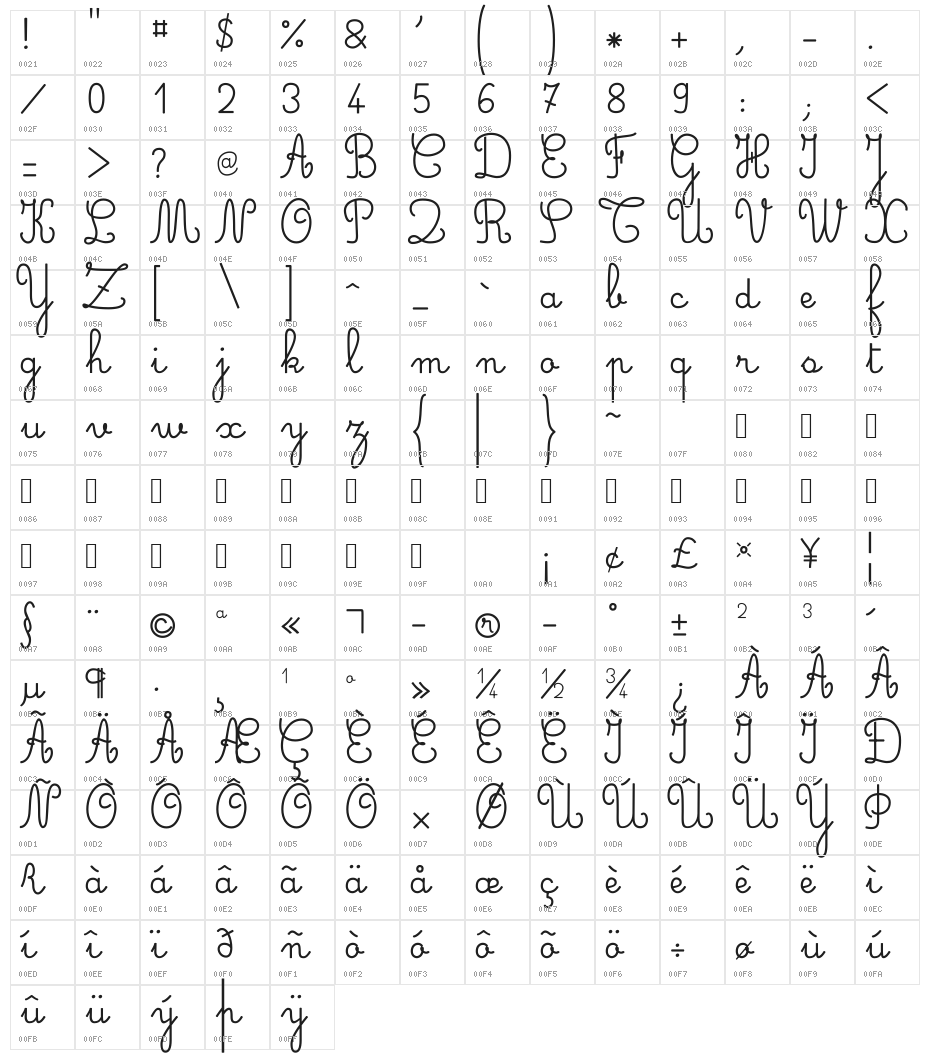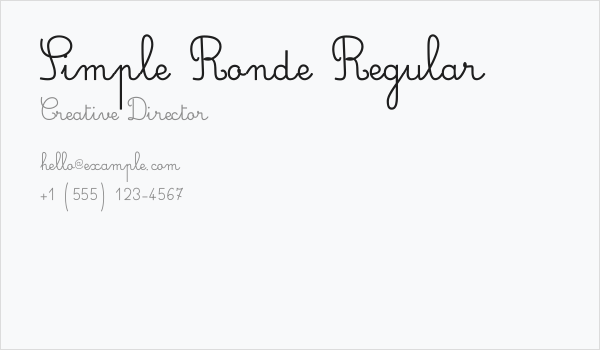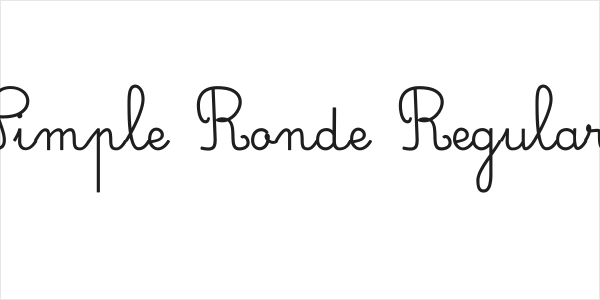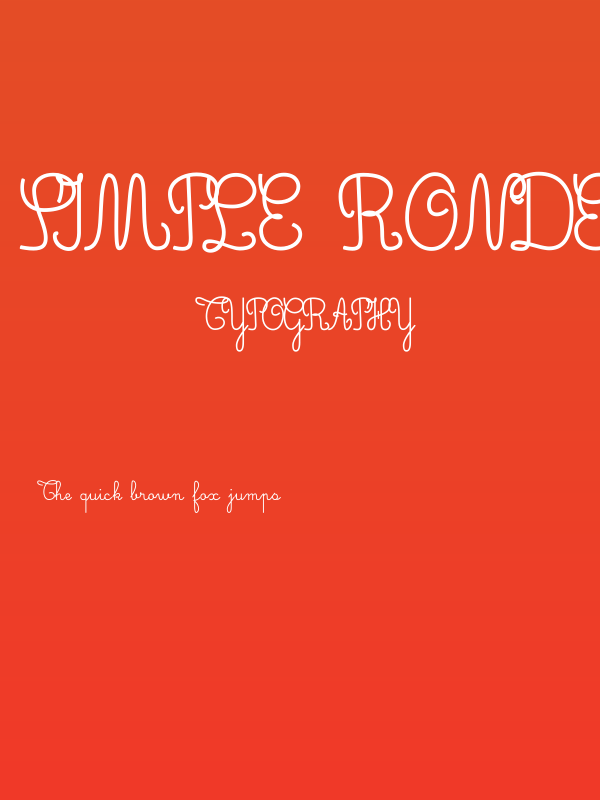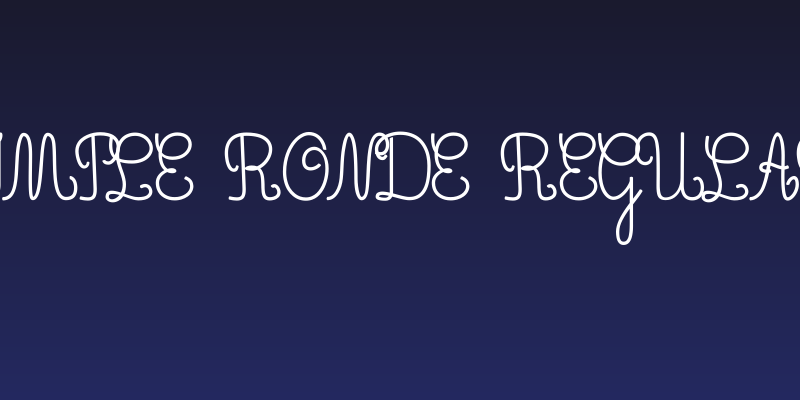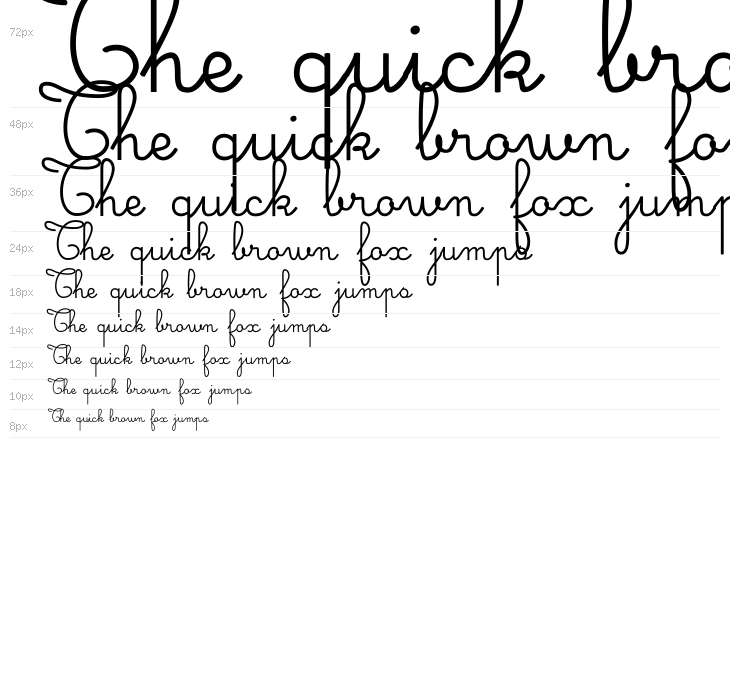
Simple Ronde Regular Font
Simple Ronde Regular Description
This font features a playful and elegant script style with a handwritten appearance. The uppercase letters are characterized by their looping and flowing lines, creating a sense of movement and fluidity. The lowercase letters maintain a consistent style, with smooth curves and a slightly rounded finish. The numerals are clear and legible, complementing the overall aesthetic. Special characters are integrated seamlessly, maintaining the font's cohesive look. This font is ideal for projects that require a personal touch, such as invitations, greeting cards, or branding materials that aim to convey warmth and approachability.
| Proposed Projects | Ideal for invitations, greeting cards, and branding materials. |